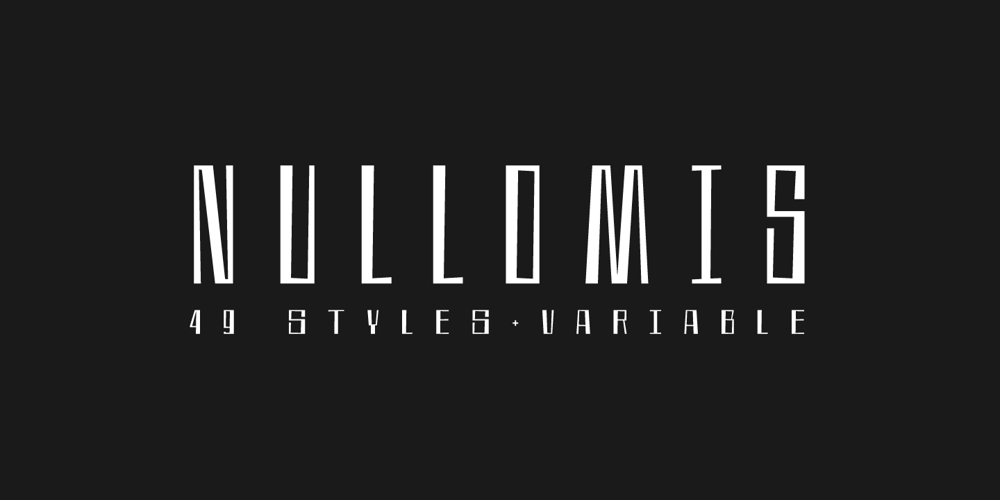
Nullomis Font Family was designed by Ilyas Yunusov and published by Kulturrrno. Nullomis contains 45 styles and family package options. Nullomis is a modern display font inspired by Soviet Period, anti-utopia and Ancient Rome (I don’t know why).It was originally planned to create an ultracondensed headliner, but now it’s a flexible font set with 49 styles or just one Variable Font with all capabilities.Best using for posters, headlines and tags. Extended latin glyph set 7 weights 3 widths Alternate crossbar heights or all of this and more in one Variable font